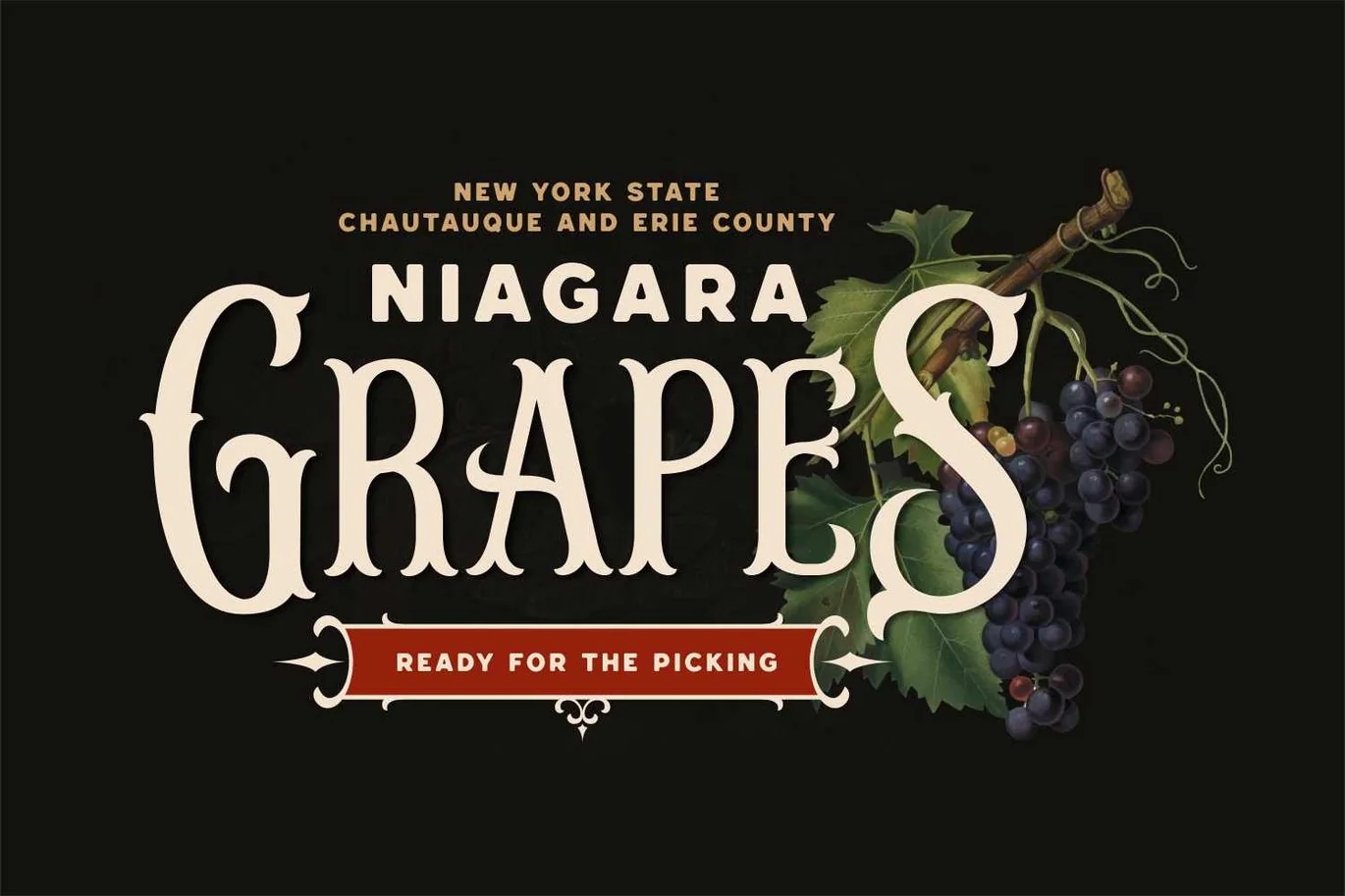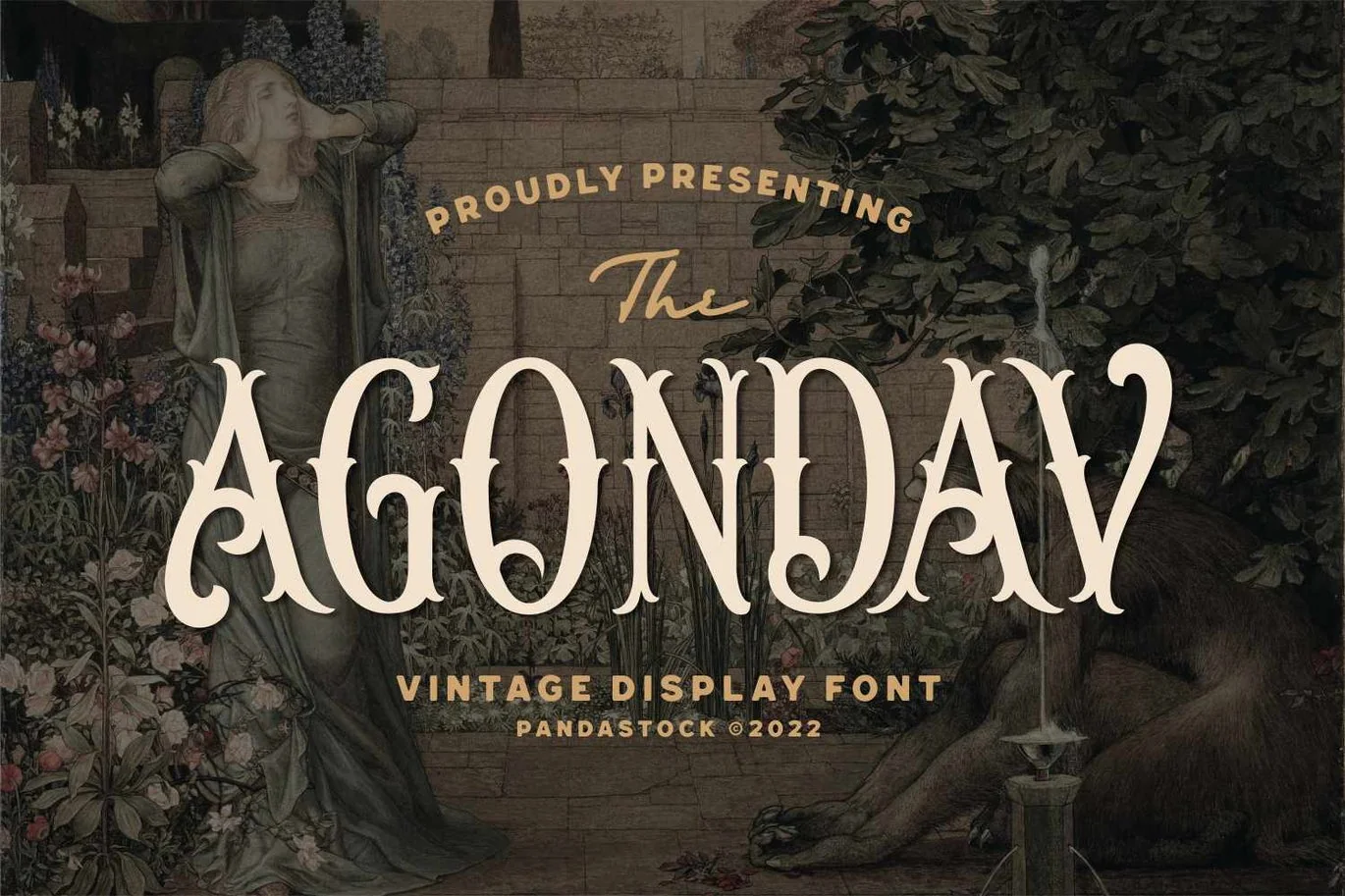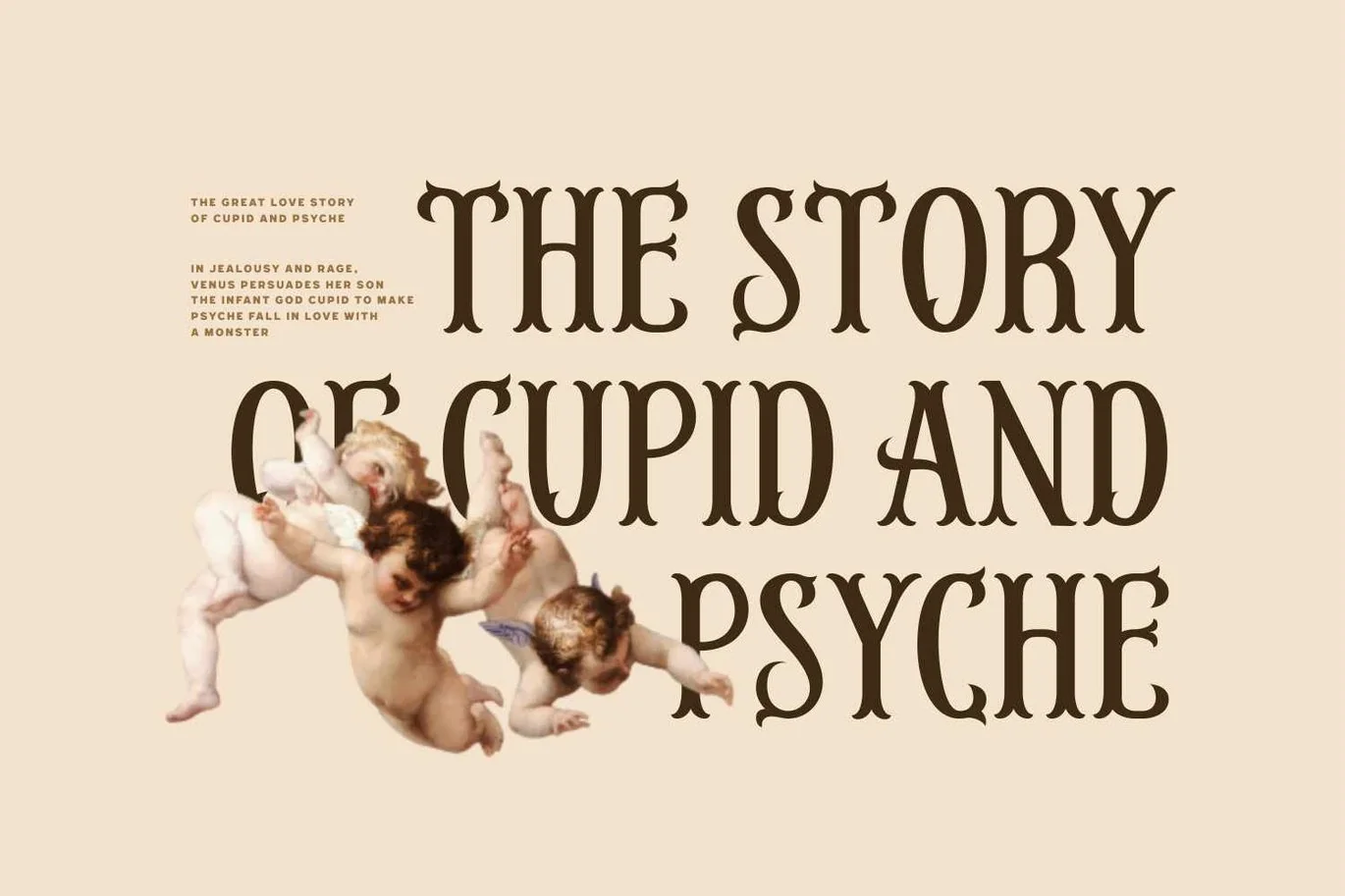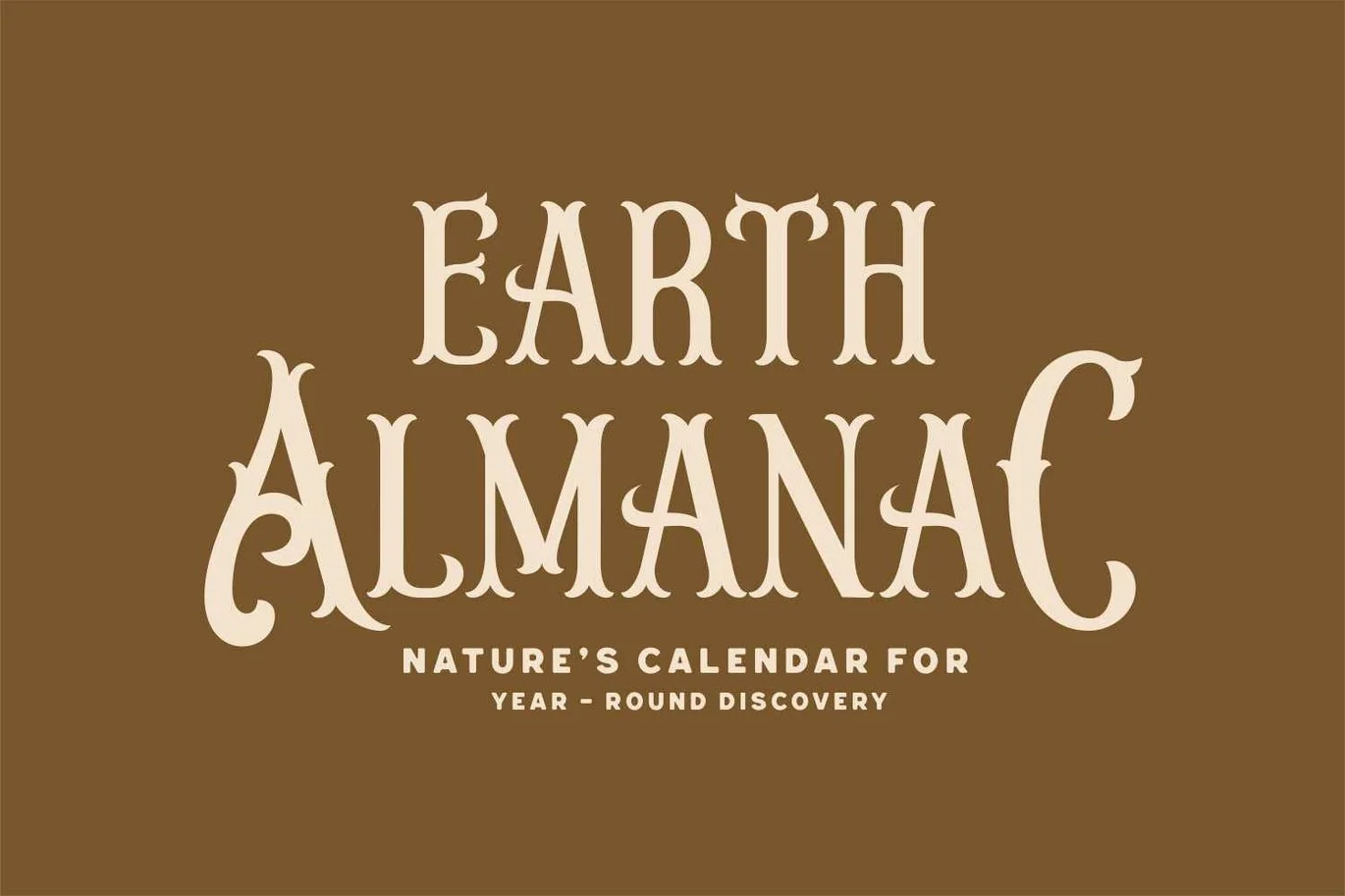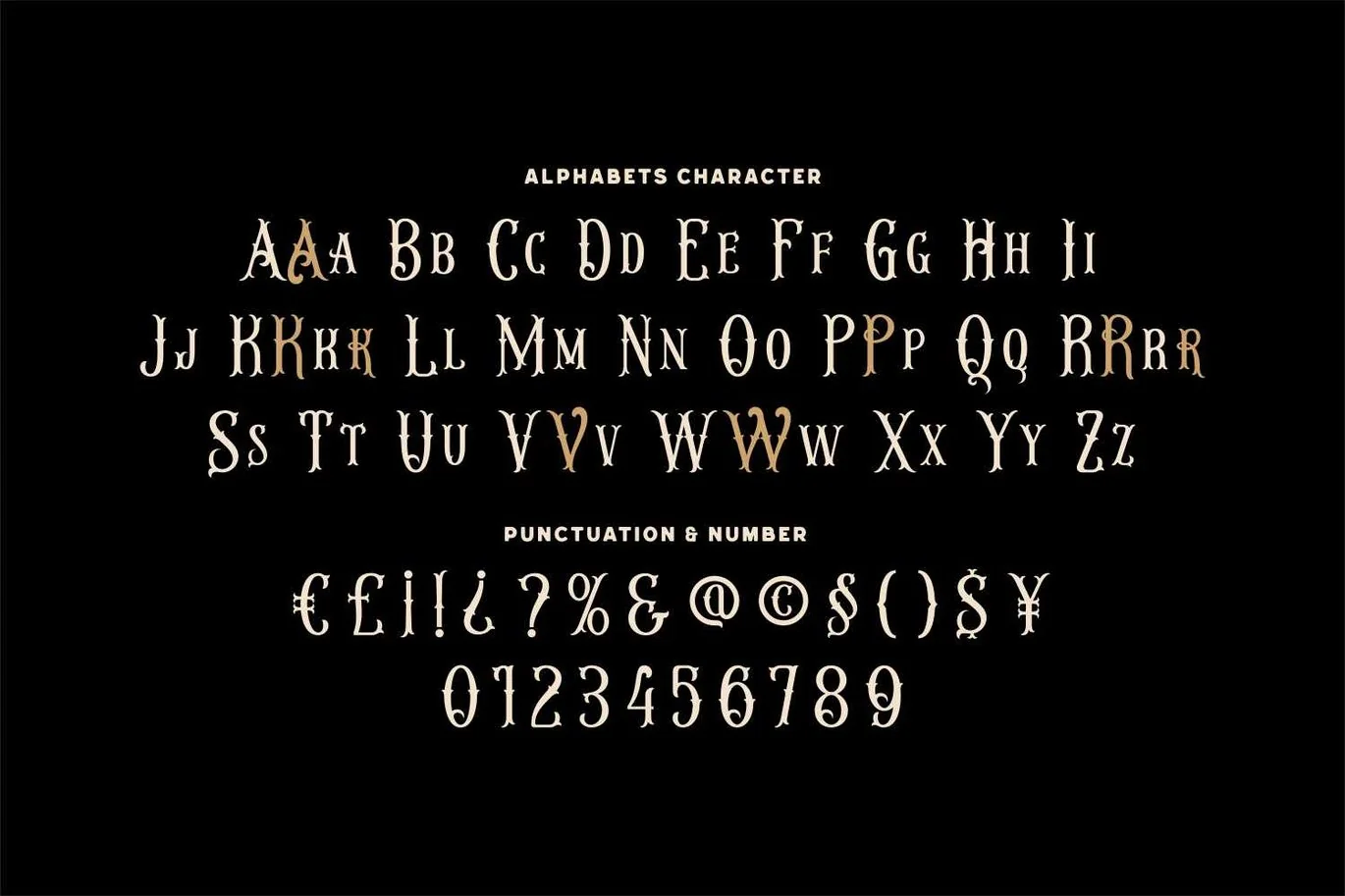
Agondav – Old Vintage Font
Agondav is old vintage font, this typeface has smooth curves and a visual style a can embodies charm and elegance in every lettering, making your work look stunning and attractive.
A versatile font that works in both large and small sizes, suitable for a wide variety of projects such as a display for headings, logos, invitations, branding, magazine, photography, card, product packaging, product mockup, mugs, posters, labels, signatures, editorials, art deco, any type of advertising purpose.